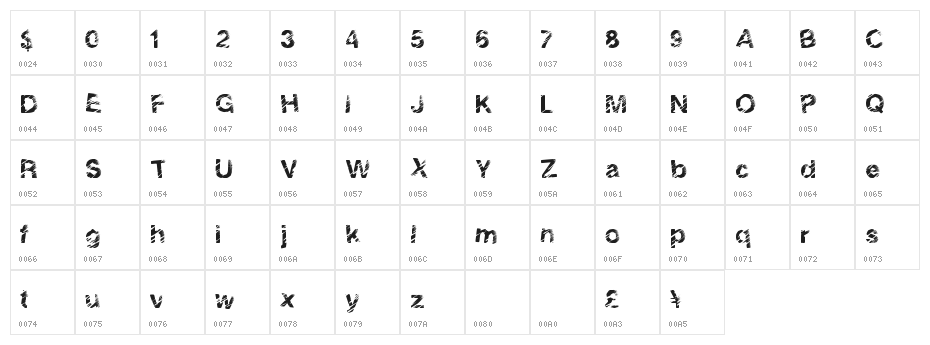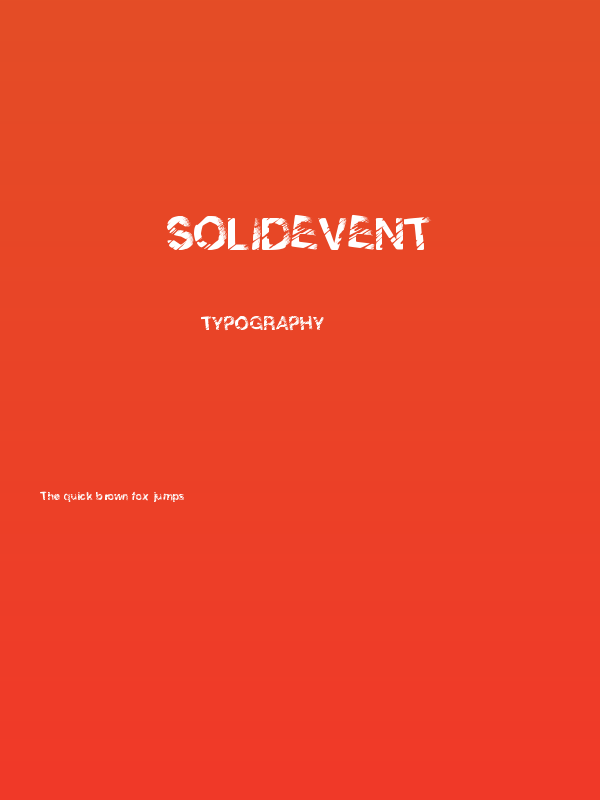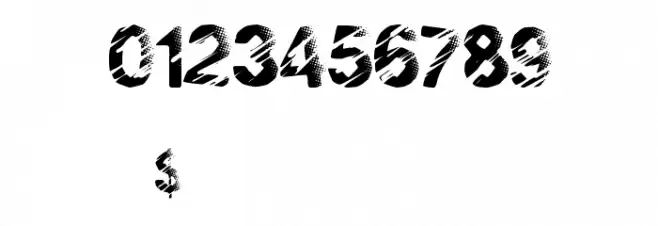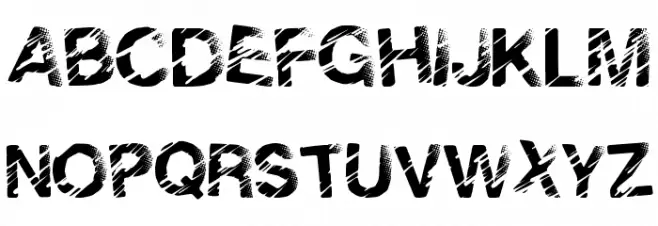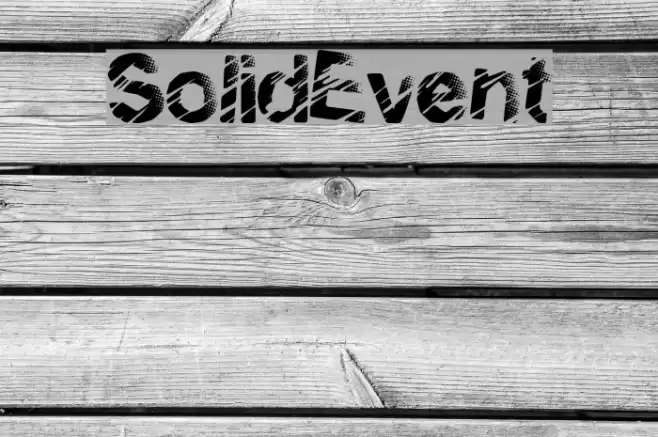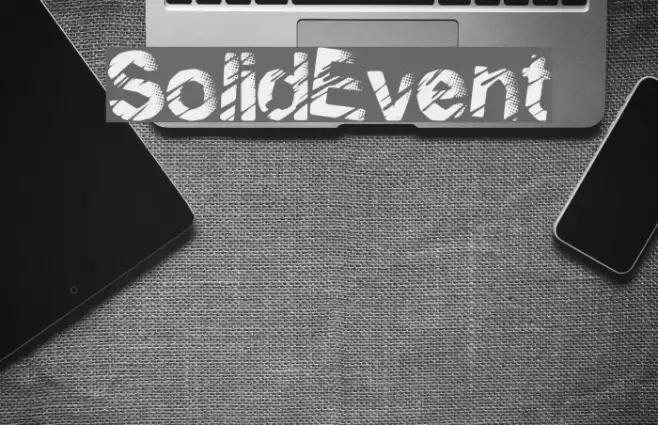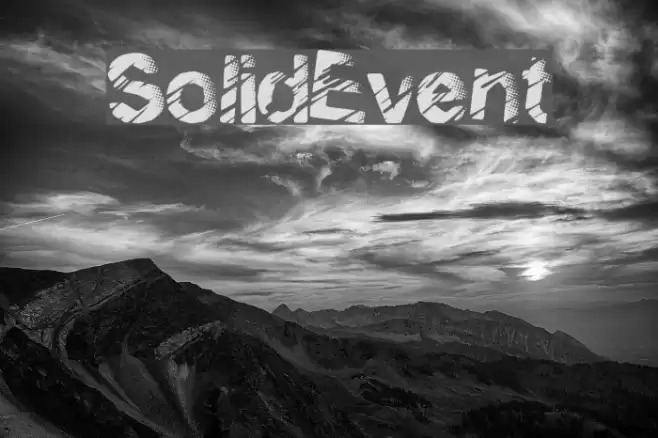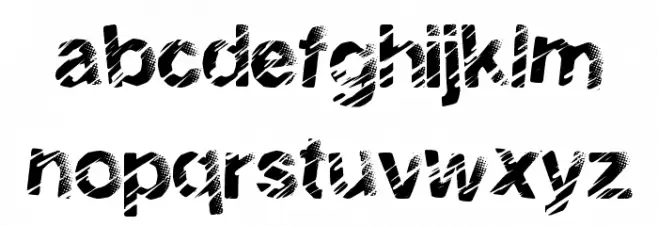
SolidEvent Font
✎ Distorted Eroded
| おすすめプロジェクト | Ideal for event posters, music album covers, urban-themed designs, and eye-catching advertisements. |